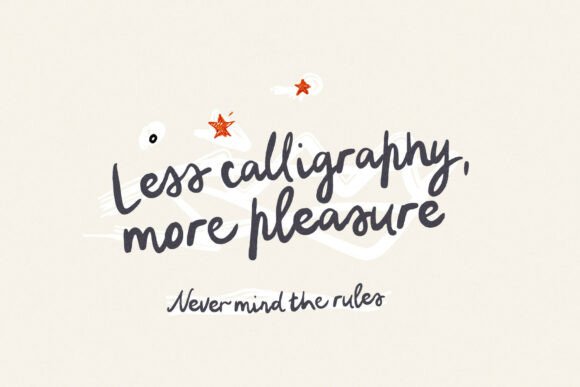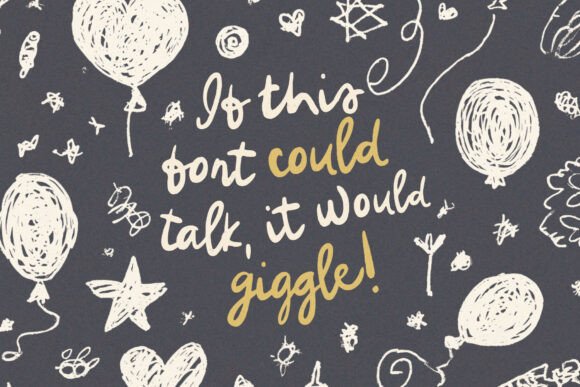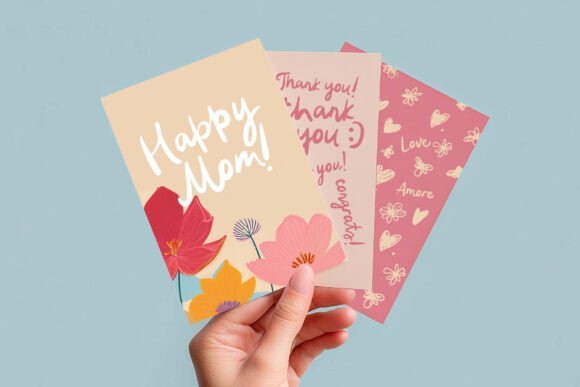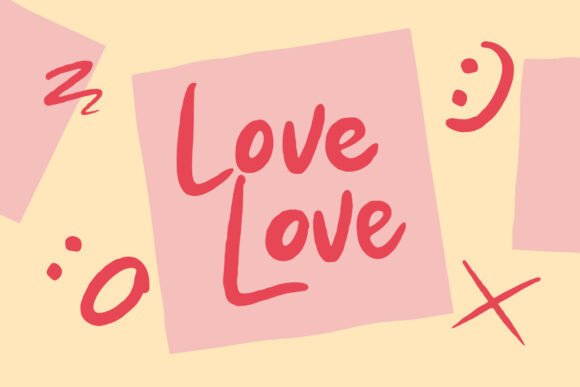
Scribblemood Regular Font
Scribble Mood is a quirky handwritten font inspired by playful doodles and messy pen sketches. With 486 glyphs, it includes alternates, ligatures, multilingual support, and a full set of childlike food and wedding icons. It’s the perfect choice to inject life, humor, and warmth into your designs.
How it works:
– Alternate letters are triggered by adding 1 after any number (ex: A1 or a1)
– Contextual alternates automatically style the last letter of each word, mimicking authentic imperfect handwriting
– Ligatures and stylistic alternates provide a fun script rhythm and organic script flow
– Doodle extras: Includes childlike food icons, checkmarks, arrows, banners, and romantic elements
– Roman numerals: Type I=, II=, IV=, etc. to access decorative numeral forms
Who is this font for:
– Designers of playful wedding invitations and signage
– Creative packaging and branding projects
– Social media quote makers and content creators
– Children’s book illustrators and teachers
– Calligraphy lovers who prefer a messy, funky, or imperfect look
– Greeting card and stationery designers